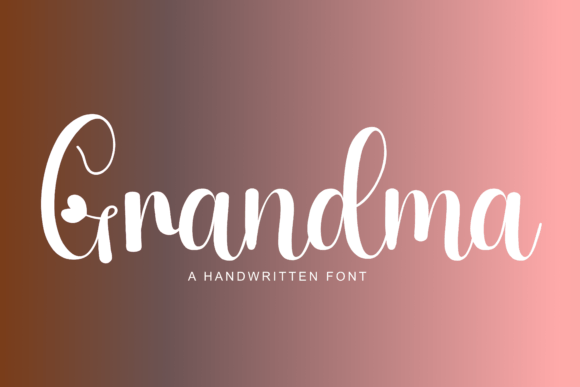
The Magic of Grandma Font: Elevating Designs to New Heights
As a designer, there’s nothing quite like that moment when a font clicks, and your entire project comes together in perfect harmony. For me, it was the moment I discovered the enchanting Grandma Font. Its elegant curves and refined lines seemed to whisper ‘perfection’ in my ear, and I knew I had to learn more about this charming script font.
Designed to add a touch of sophistication to any design, the Grandma Font is more than just a pretty face. Its versatility and charm make it an invaluable tool for designers looking to elevate their work to new heights. Whether you’re crafting wedding announcements, designing digital content, or working on paper crafts, Grandma Font is the perfect companion to help you create lasting impressions.
Key Features of Grandma Font
- Font Family: A handwritten, cursive script font with a warm and personal feel.
- Unique Characteristics: Distinctive, flowing strokes and subtle flair at the ends of letters, giving it a nostalgic and elegant feel.
- Font Style: Available in Regular and Bold styles, allowing for versatility in design applications.
Review of “Grandma Font”
Overall, I was excited to dive into “Grandma Font” as it promised a unique blend of vintage charm and modern appeal. ✨ While it’s a great choice for projects that need a warm, inviting feel, there are some limitations that might make it less suitable for certain designs.
- ✨ The font’s nostalgic charm is undeniable, making it perfect for projects that require a vintage or retro aesthetic.
- ✨ The weight range is decent, allowing for a good level of flexibility in terms of font size and usage.
- ✨ The font’s readability is quite good, making it a solid choice for body text.
- ⚠️ The font’s design can be a bit too playful for certain projects, making it harder to achieve a professional or serious tone.
- ⚠️ The character set is relatively small, which might be a concern for projects that require specific characters or symbols.
- ⚠️ The font’s spacing can be a bit inconsistent, which might affect readability in certain situations.
Overall, I think “Grandma Font” is a solid choice for the right project. While it’s not perfect, its unique charm and decent weight range make it a great option for designers looking to add a vintage touch to their work.
Practical Application Guide for “Grandma Font”
Tip: Use Grandma Font for vintage-inspired designs, such as invitations, postcards, or social media graphics.
Tip: Use Grandma Font for creating custom graphics, logos, or typography-based art.
Tip: Use Grandma Font for creating presentations, reports, or documents with a vintage flair.
Grandma Font is ideal for:
- Vintage-inspired designs.
- Custom graphics and logos.
- Typography-based art.
- Presentations, reports, and documents with a vintage flair.
Alternatives to Grandma Font
Playfair Display is an elegant and luxurious serif font, perfect for use in titles, headings, and other design elements where sophistication is key. It is ideal for high-end branding, wedding invitations, and luxury product packaging. In comparison to Grandma Font, Playfair Display is more refined and less distressed, giving it a more polished look.
Carolyna Pro is a modern script font with a vintage touch, suitable for use in branding, packaging, and advertising. It is perfect for creating a unique and eye-catching design. Compared to Grandma Font, Carolyna Pro has a more fluid and dynamic feel, making it ideal for applications where a sense of movement is desired.
Great Vibes is a beautiful and elegant script font, perfect for use in titles, headings, and other design elements where a sense of sophistication is desired. It is ideal for high-end branding, luxury product packaging, and special occasion invitations. In comparison to Grandma Font, Great Vibes has a more refined and less distressed look, making it suitable for applications where a sense of elegance is desired.